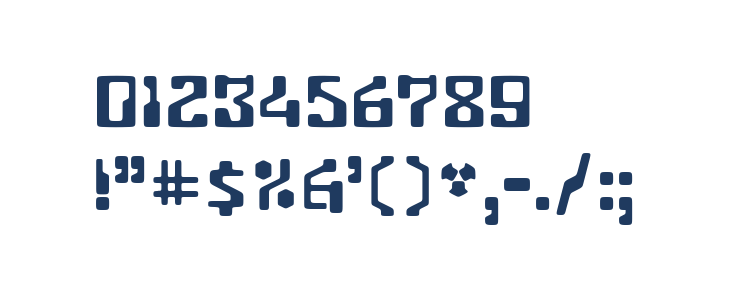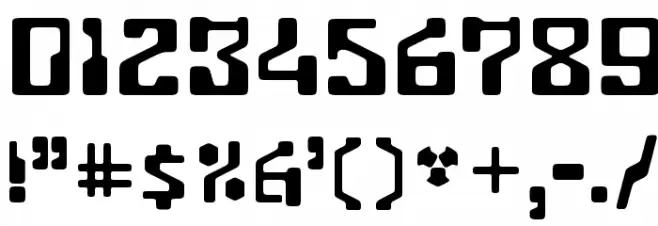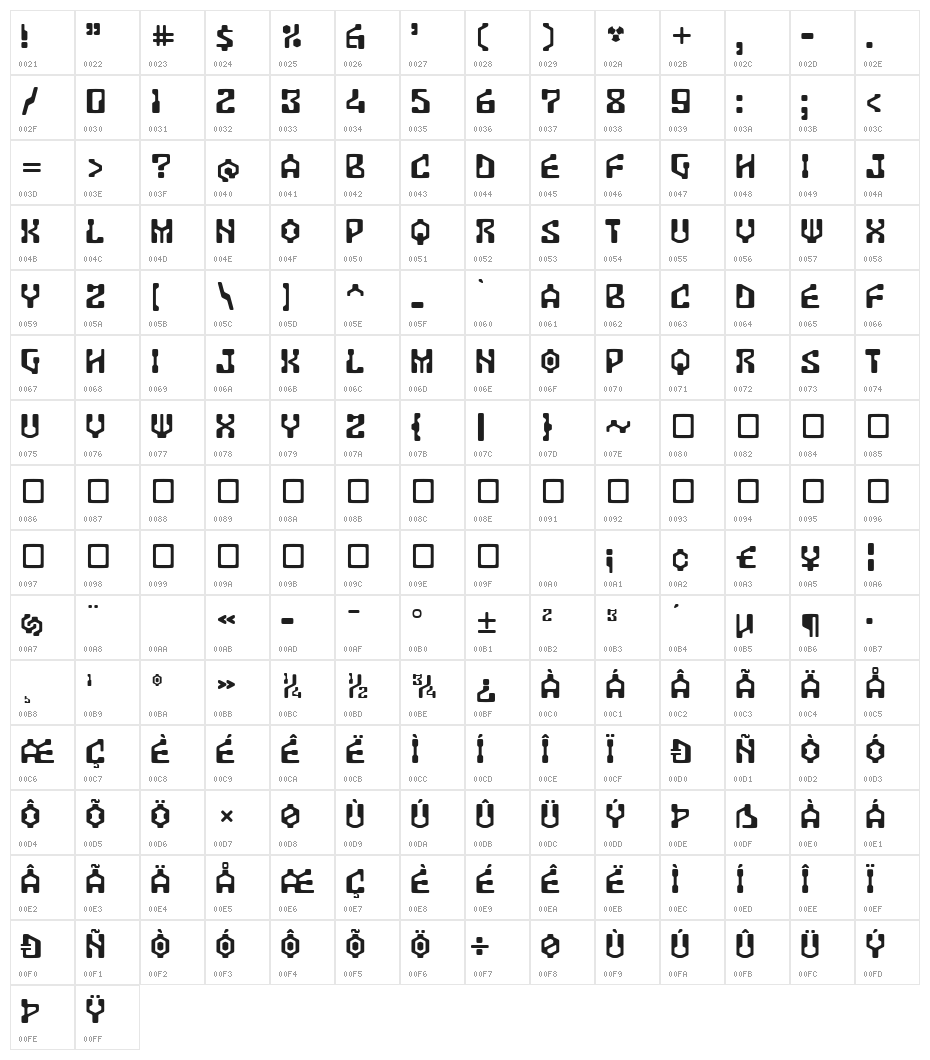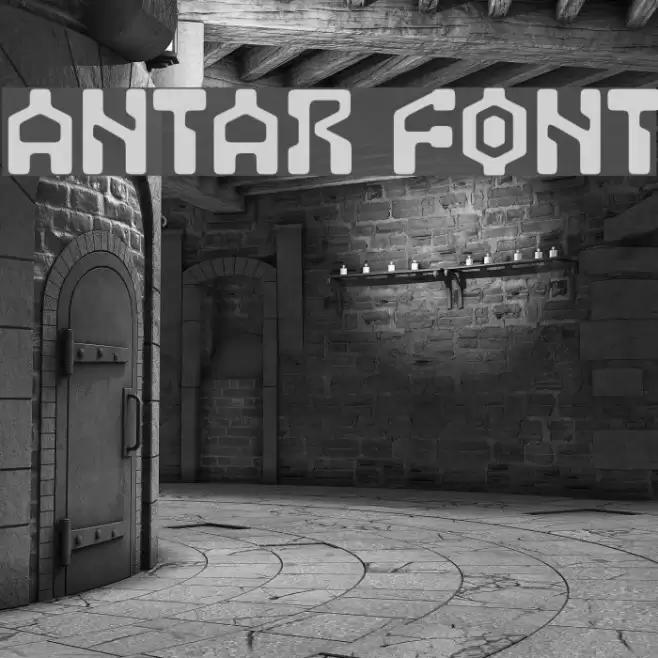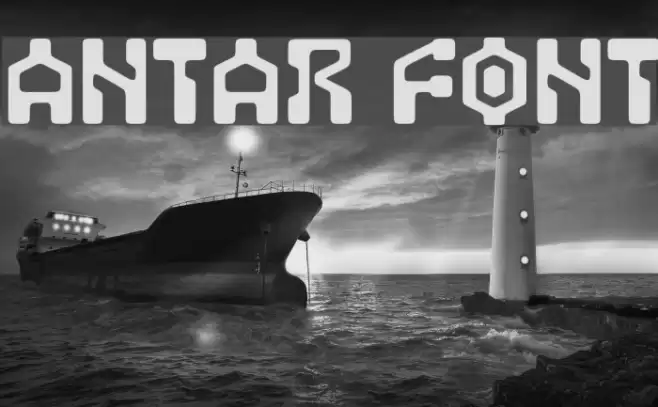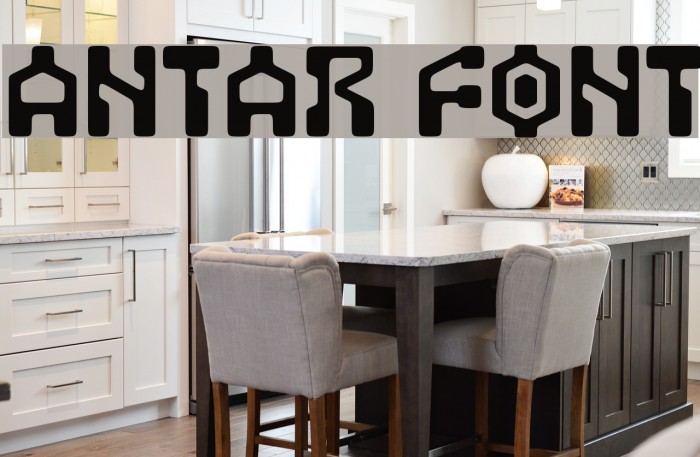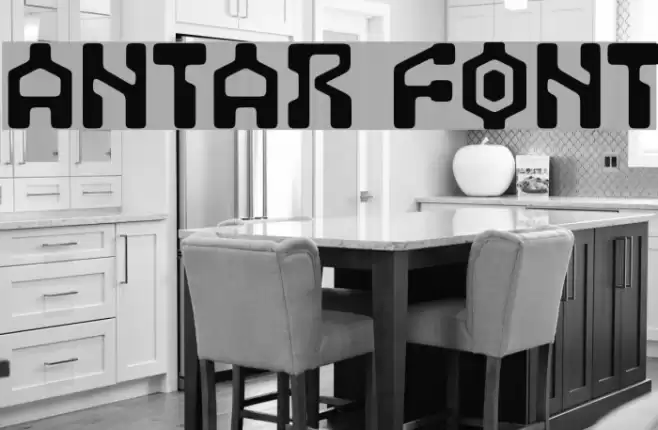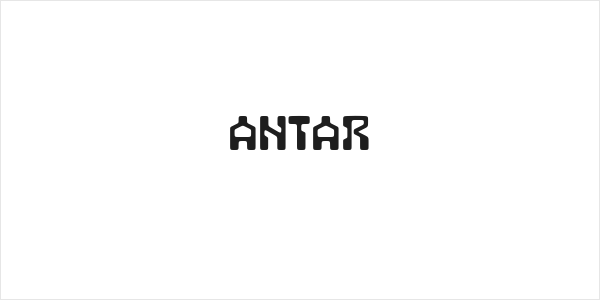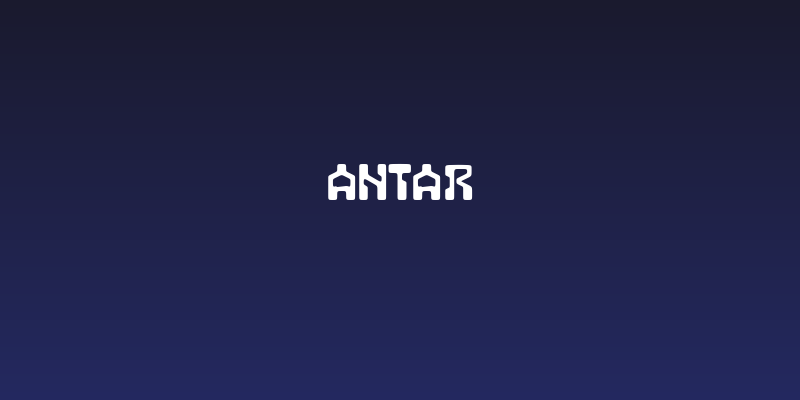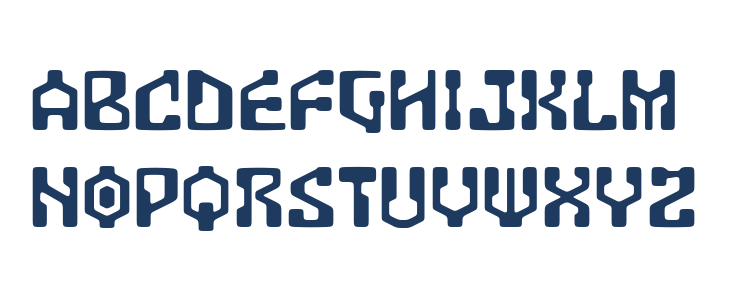
Antar Font
Antar Description
This font features a bold, geometric design with a distinctly modern and futuristic aesthetic. The characters are constructed with thick, uniform strokes and angular shapes, giving them a strong and impactful presence. The uppercase and lowercase letters maintain a consistent style, with sharp edges and a blocky appearance. The numbers and special characters follow the same design principles, ensuring a cohesive look across all elements. The font's unique style makes it stand out, ideal for projects that require a bold statement.
| Proposed Projects | Ideal for branding, posters, video game graphics, and sci-fi themed designs. |